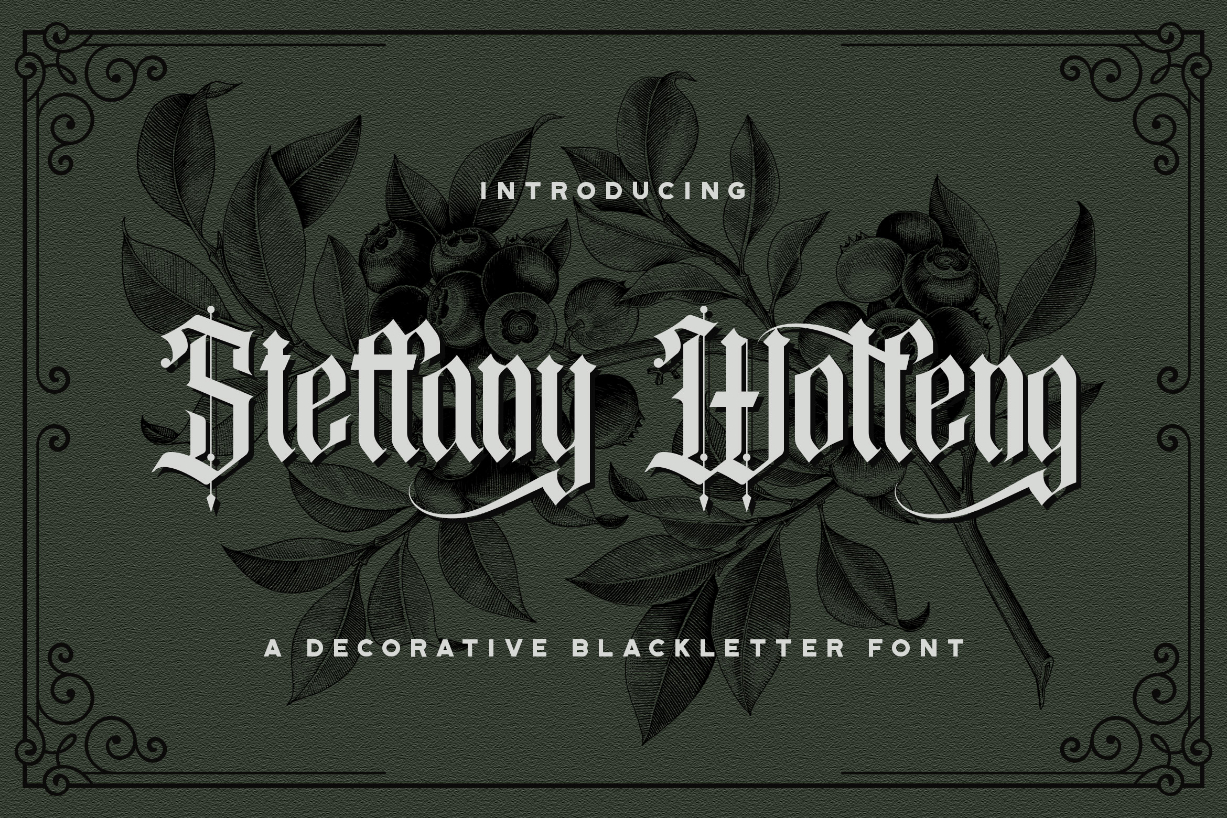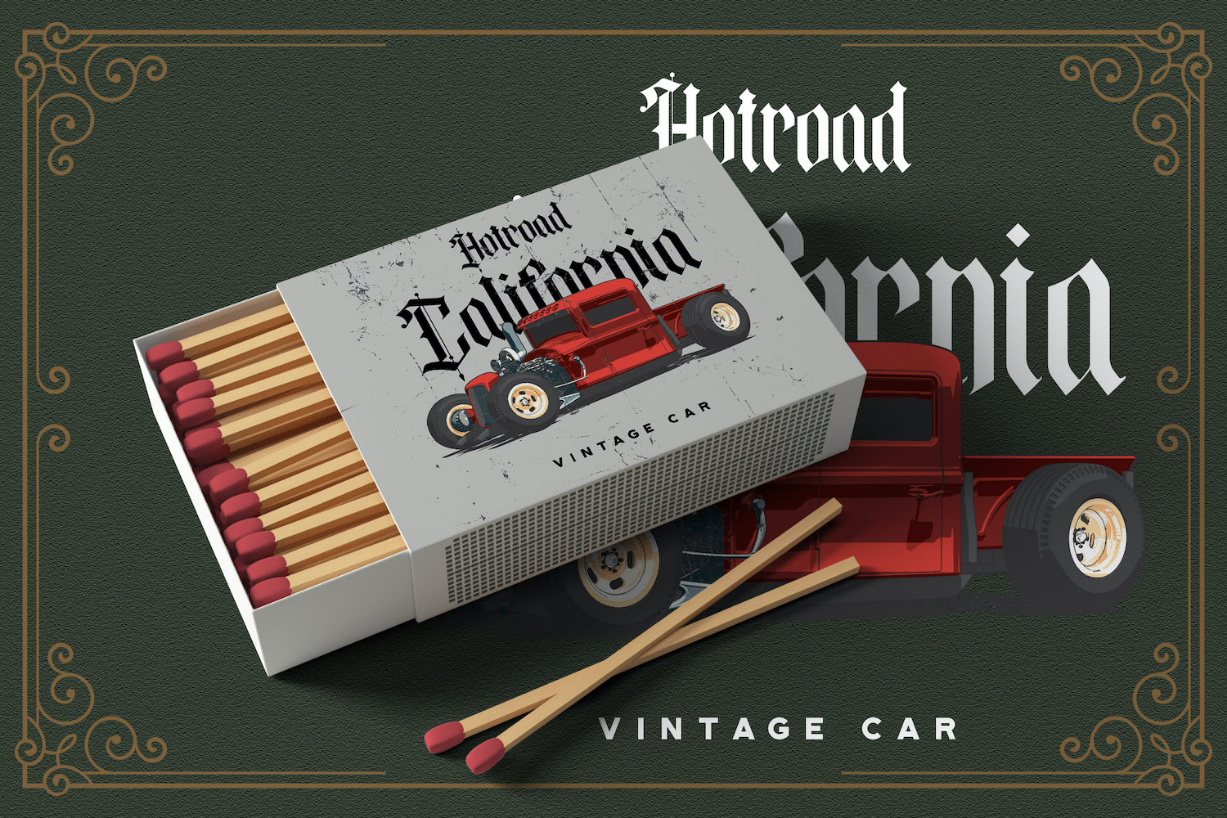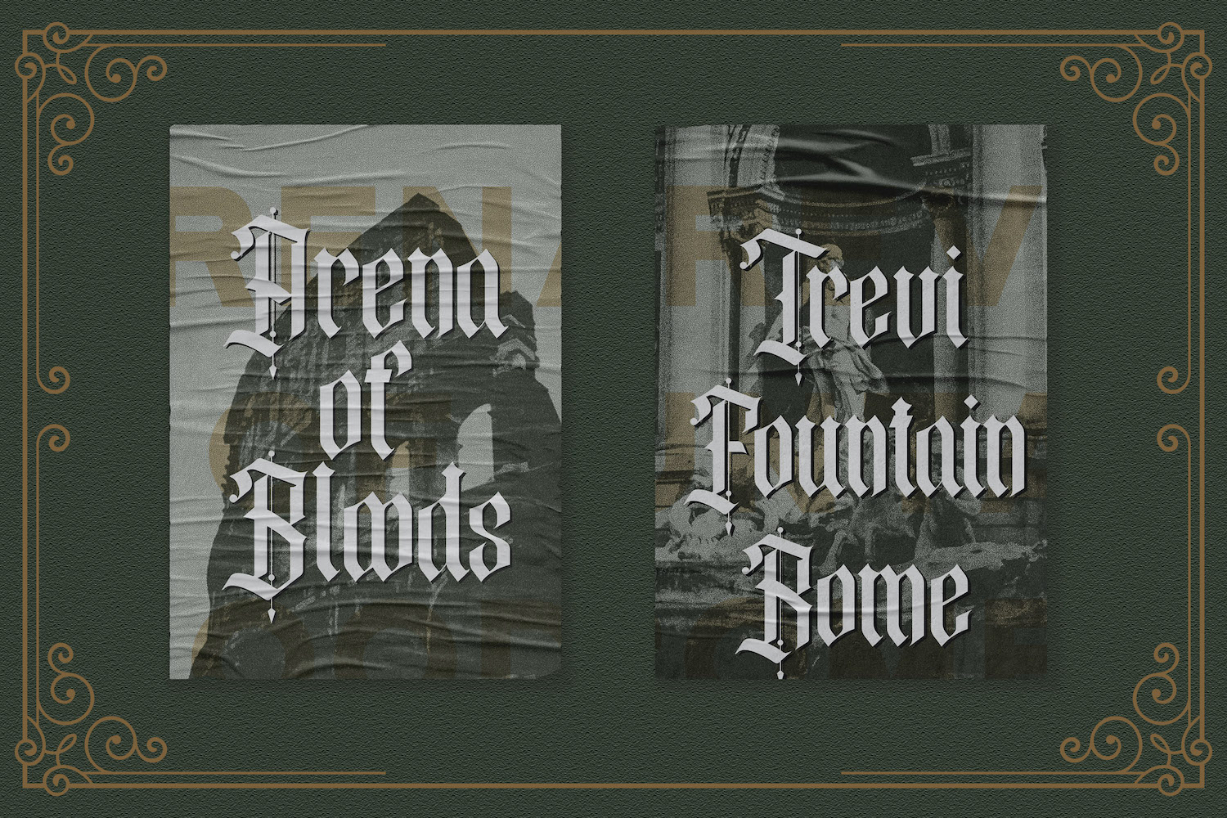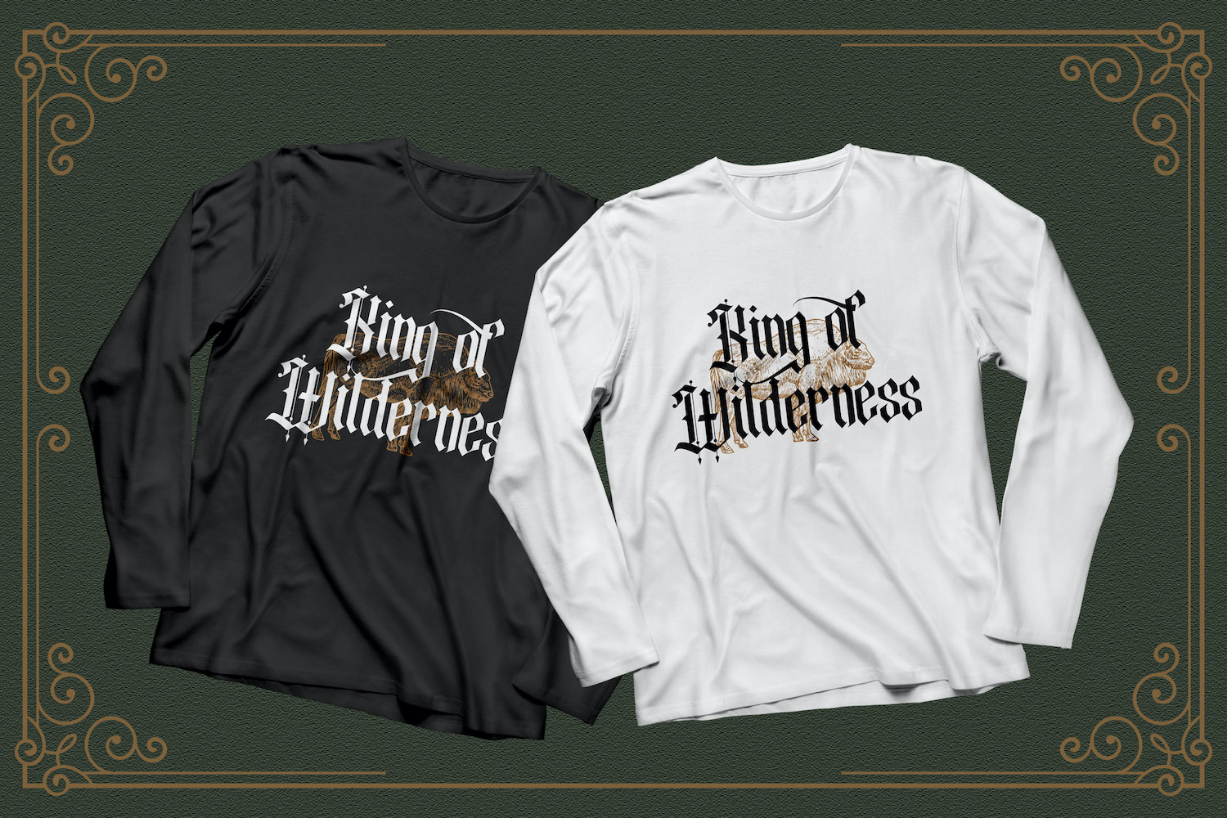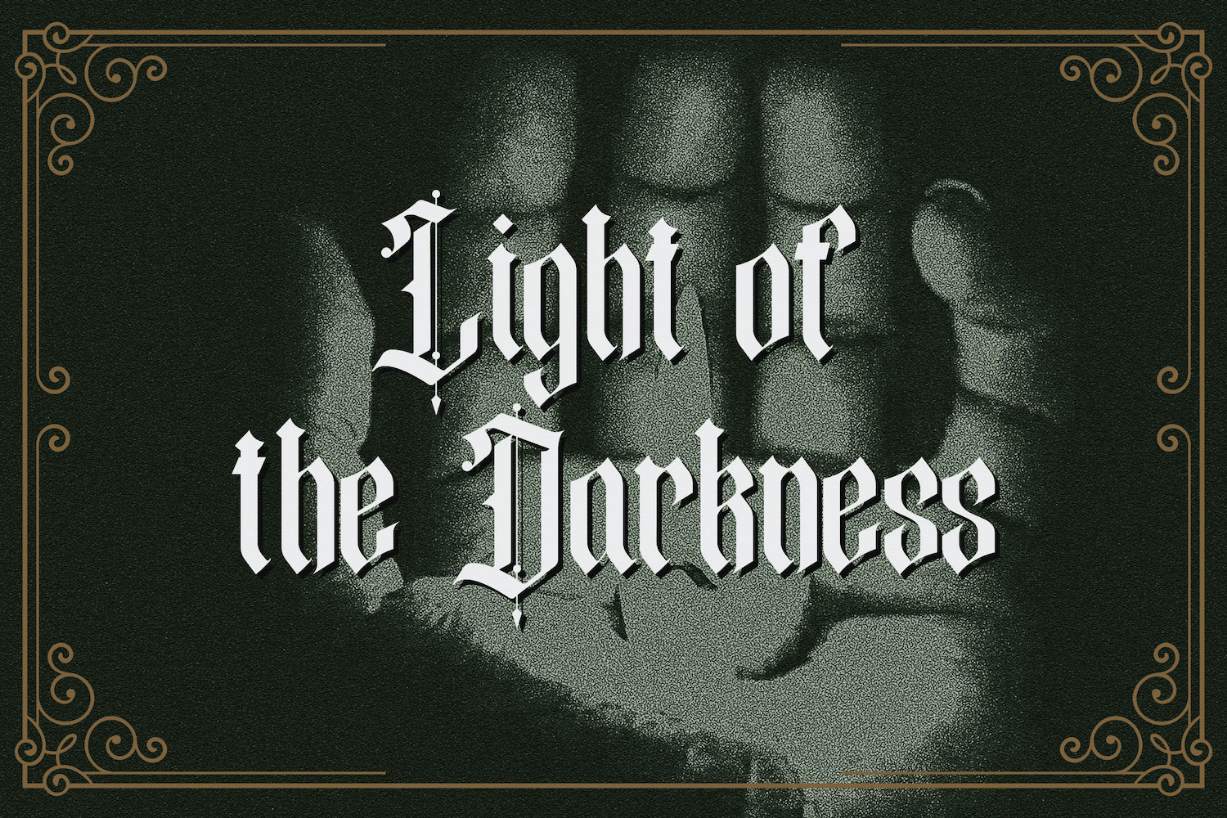
About Steffany Wolfeng Font
Steffany Wolfeng is an authentic and assertive blackletter font. Add it confidently to your projects, and you will love the results.